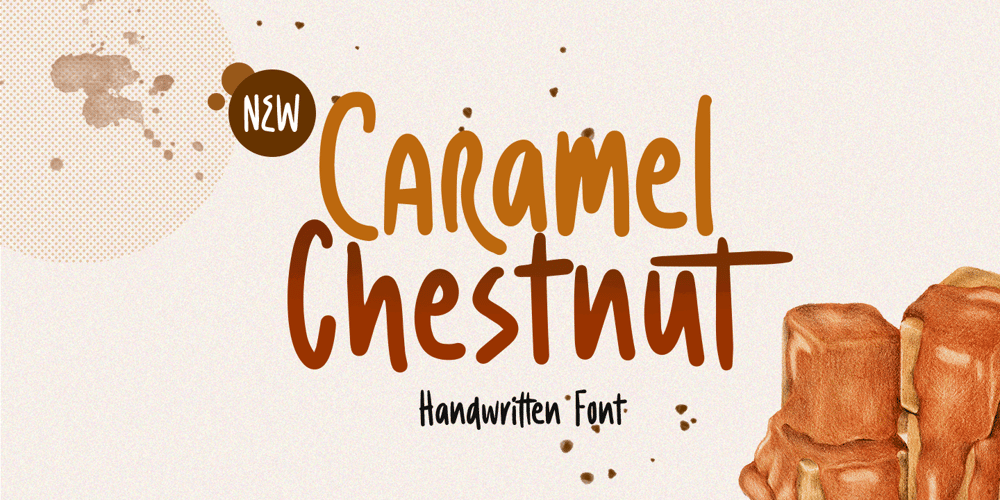
Caramel Chestnut Font Family was designed by Hendry Juanda and published by Letterhend. Caramel Chestnut contains 1 styles and family package options. Introducing, Charamel chestnut! this font is a carefully crafted display font but still have an organic touch. this font is perfect for branding, packaging, headline, title, etc.Features : uppercase & lowercase numbers and punctuation multilingual alternates and ligatures PUA encoded We highly recommend using a program that supports OpenType features and Glyphs panels like many of Adobe apps and Corel Draw, so you can see and access all Glyph variations.